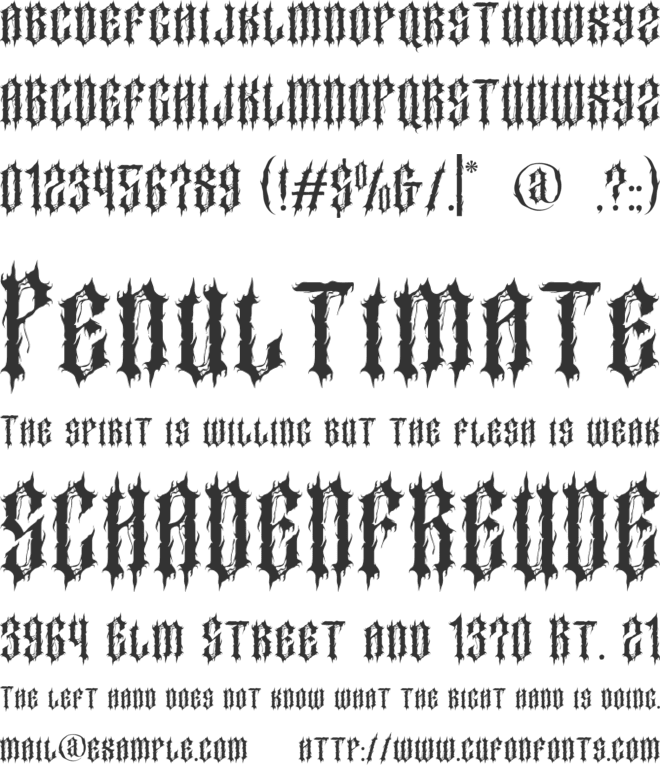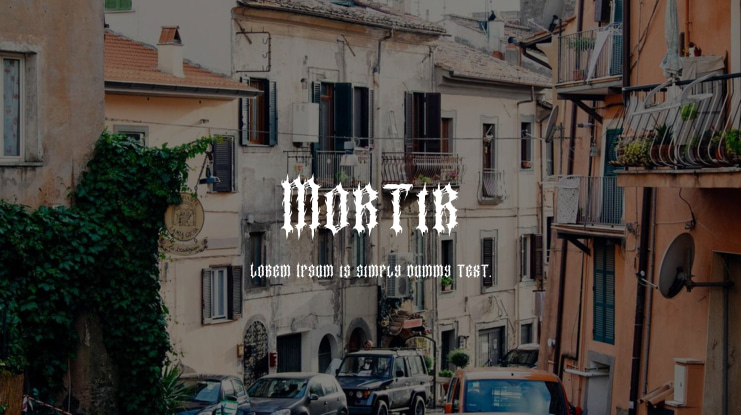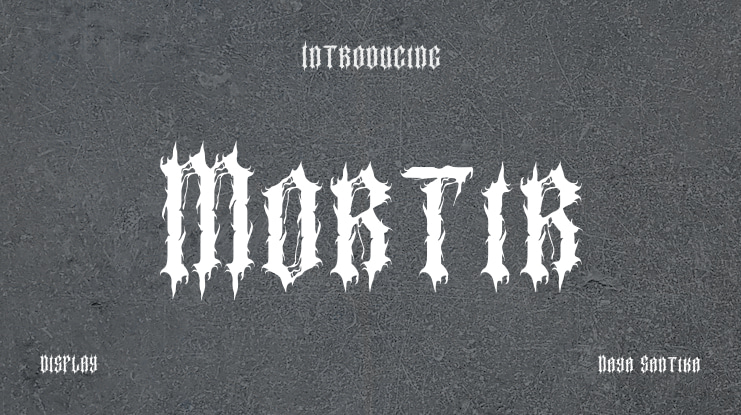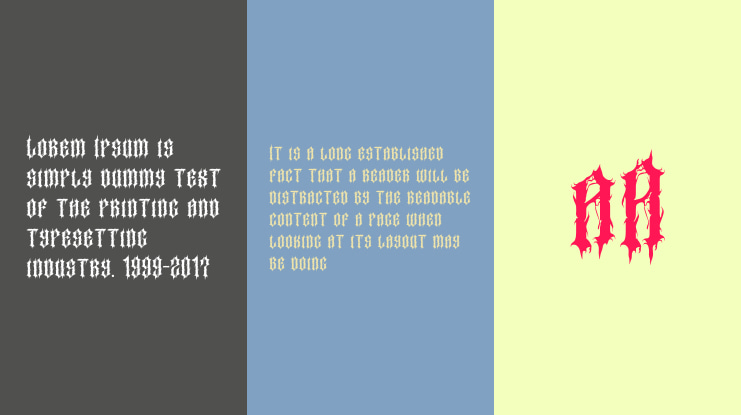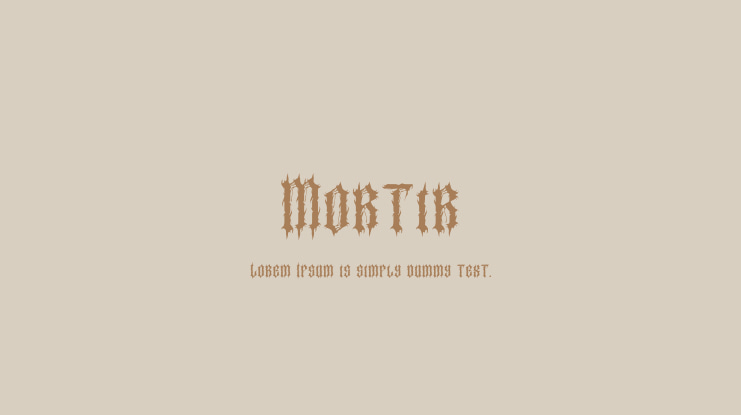
Mortir Font
“Mortir” death metal typeface. Each letter exudes an aura of mystique and brutality, perfectly reflecting the atmospheric and sometimes ominous themes prevalent in black metal culture.